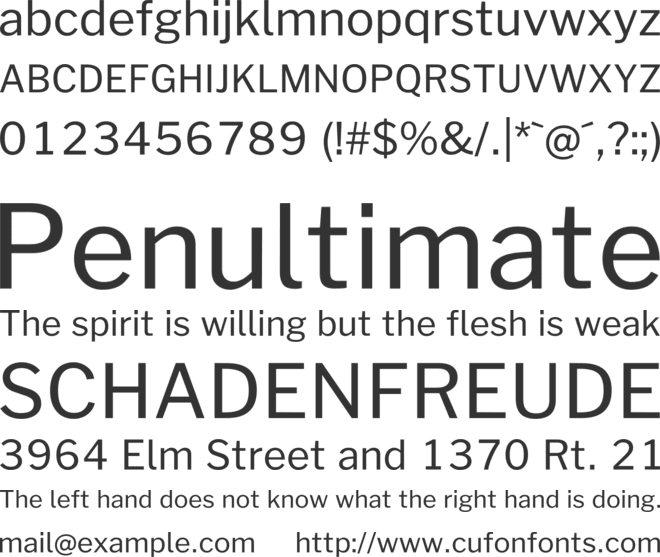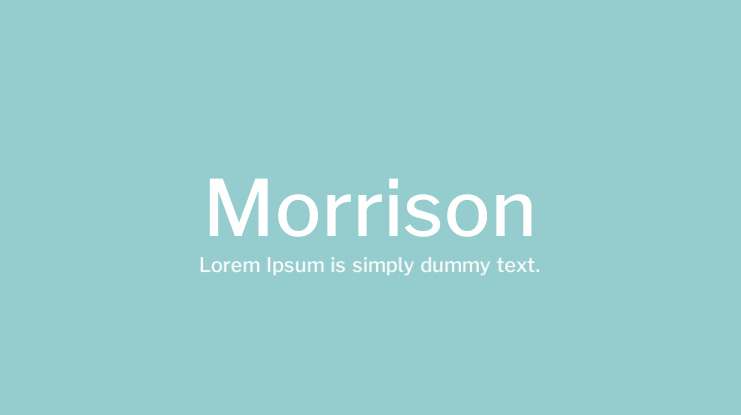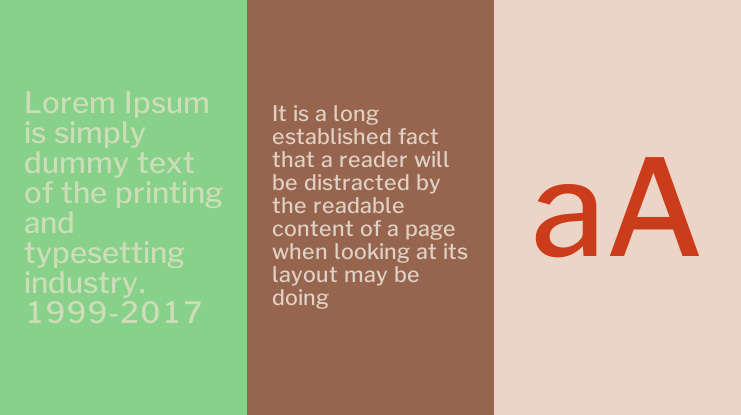
Morrison is based on 18Franklin and Libre Franklin. It retains the original Franklin Gothic design as much as possible, and has tabular numerals as default, but some glyphs such as the tail on lowercase l are new. Morrison was designed to be as more versatile as possible, so it has nine weights with matching italics. Morrison is released under the SIL Open Font License, version 1.1.
18Franklin is based on Libre Franklin, which is a trademark of Impallari Type.